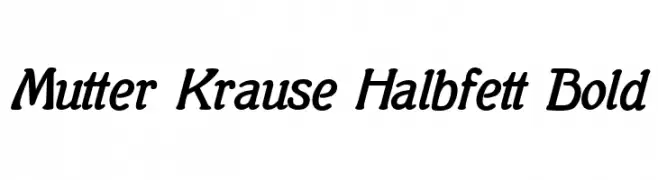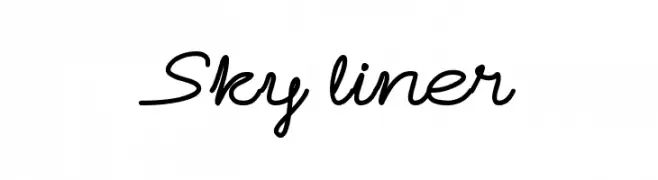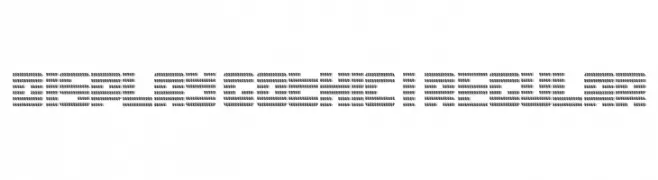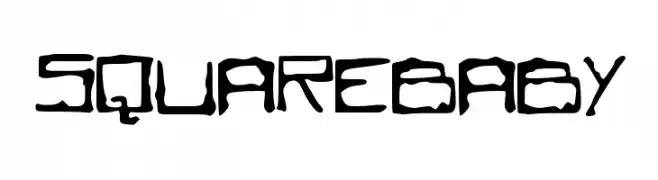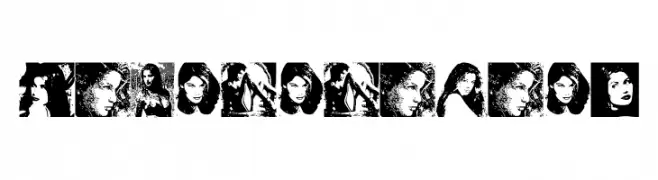
A geometric, loopy font with bold, interconnected lines and a modern flair.
A bold, slightly slanted serif font with a classic and elegant style.
A flowing, cursive font with elegant, connected letters and a slight right slant.
Elegant cursive script with a handwritten style.
A bold, decorative font with outlined characters and a playful style.
A futuristic, tech-inspired font with a halftone effect and geometric design.
A bold, geometric font with a blend of structured and handwritten elements.
A decorative font with characters made from detailed black and white portraits.